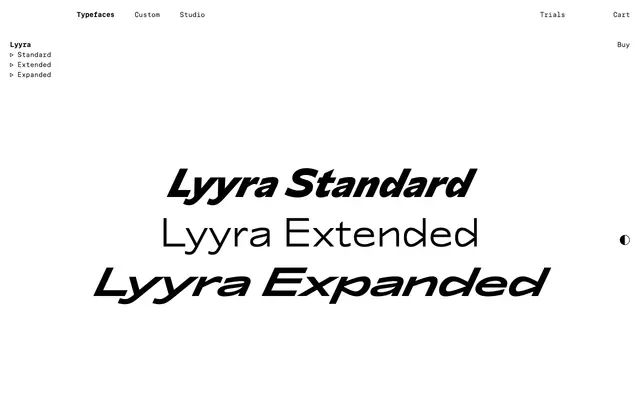
Lyyra
sans-serifexpressive sans (Antique Olive lineage)italic
An expressive sans across Standard, Extended and Expanded widths in five weights with italics; counters bloom into petals and stroke endings cut vertically.
Lyyra is a typeface with a radical aesthetic that alternates between the organic and the mechanical. Its lowercase counters start from a point and grow into acute symmetrical petals; arches start low and ascend slowly, like tree branches, and stroke endings are all cut vertically for a bare look. The high-waisted caps channel German grotesks from the 1910s. The family eschews condensed widths in favour of more luxuriant Extended and downright decadent Expanded styles, with each of the three widths spanning five weights with matching italics. Lining figures sit alongside oldstyle, tabular and sub-/superscript numerals plus fractions; rounded alternates are available where the default diamond dots are too daring.
Schick Toikka cite Edward Johnston's Railway Type (1918) and Roger Excoffon's Antique Olive (1960s) as the few predecessors for Lyyra's bare, vertically cut stroke endings; the high-waisted caps channel German grotesks from the 1910s.